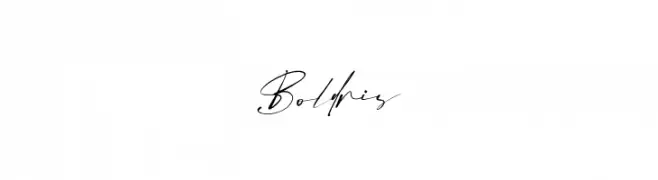
An elegant and flowing script font with decorative loops and swirls.
A sophisticated cursive font with elegant, flowing strokes.
A modern, elegant script font with a handwritten style and dynamic strokes.
A graceful and elegant script font with a handwritten style.
A dynamic, brush-style font with a handwritten, expressive look.
A bold, cursive font with smooth, flowing lines and a handwritten appearance.
A whimsical, decorative font with playful loops and curls.
A modern, elegant handwritten script with fluid, connected strokes.
A playful, hand-drawn font with dynamic curves and a whimsical style.
A playful and elegant handwritten script font with fluid, connected letters.